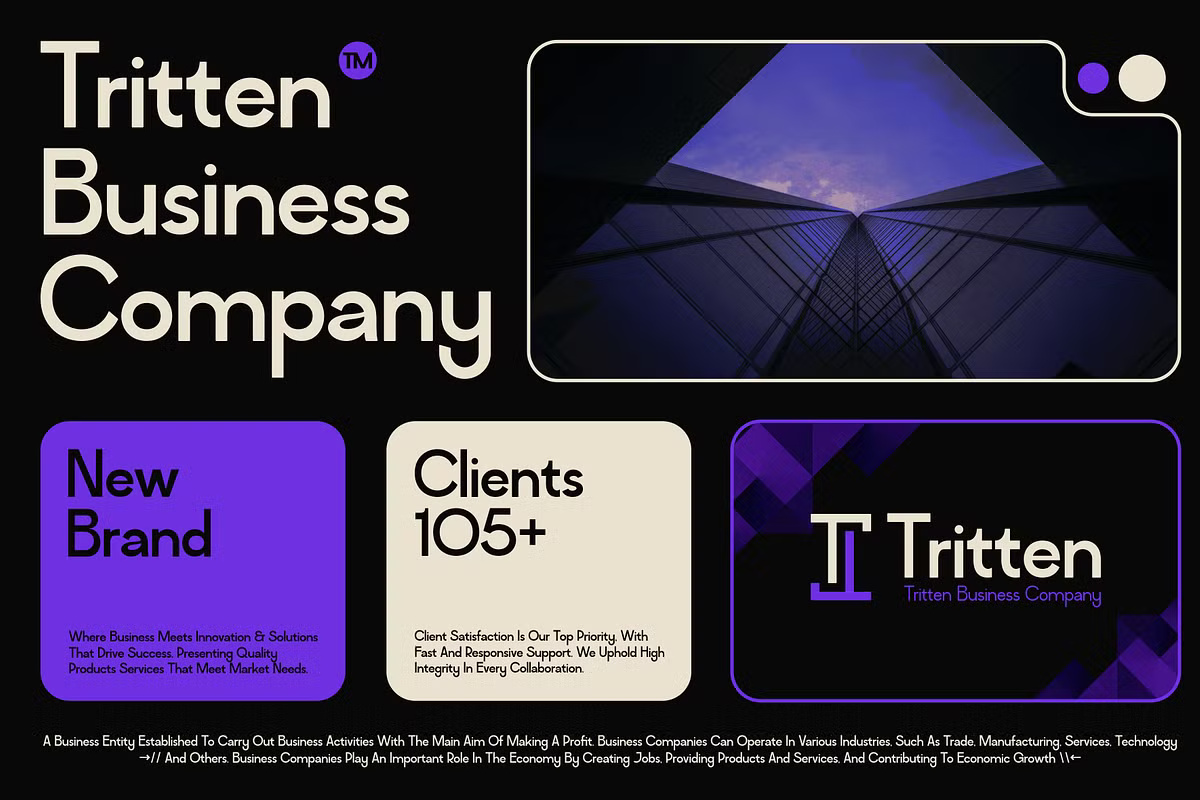
Ipaode is a tidy geometric sans with round bowls and plain, even strokes. Maikohatta Studio released it in 2025 as an eight style family: Light, Regular, Semibold and Bold, each with an italic. The cover plays with the weights by setting “IPA” in bold purple and “ODE” in a light cream.
The main preview builds a fake brand, “Tritten Business Company”, with cards, a logo and a “Clients 105+” panel. It is a fair picture of where Ipaode fits: corporate decks, start up sites and simple logos. The symbol set covers several currencies and fractions, and the download has 16 files in OTF and TTF.
Ipaode Sans Serif Font Family